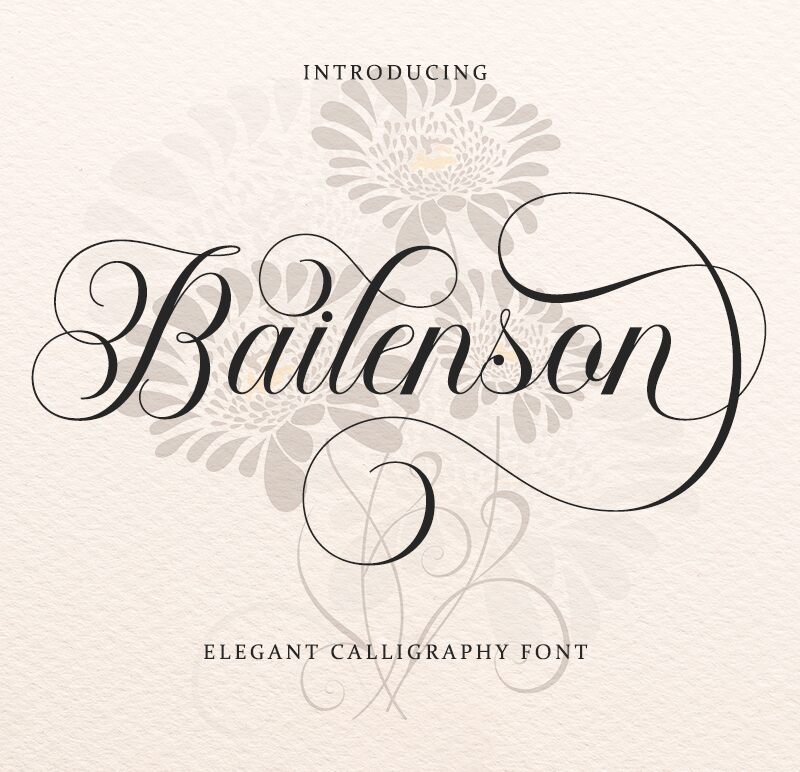
Bailenson, a creation by Pista Mova, is an exquisite semi-light font that exudes elegance and charm with its graceful calligraphy style. This font's delicate strokes and flowing curves make it perfect for wedding invitations, romantic branding projects, and luxury product packaging.
The Bailenson font adds a touch of sophistication to any design, whether it be a high-end fashion magazine or a refined restaurant menu. With its timeless appeal and refined aesthetic, Bailenson effortlessly captivates the eye and brings a touch of class to any project.
Bailenson